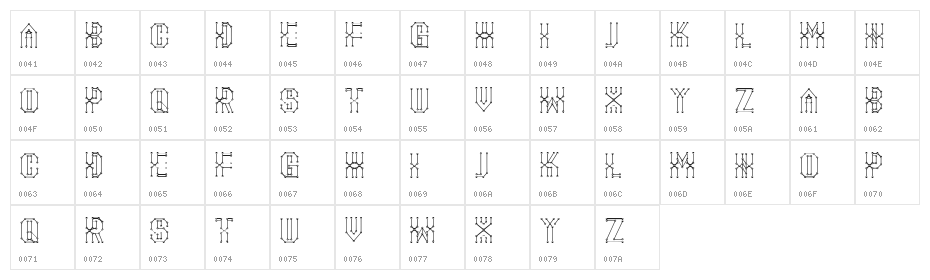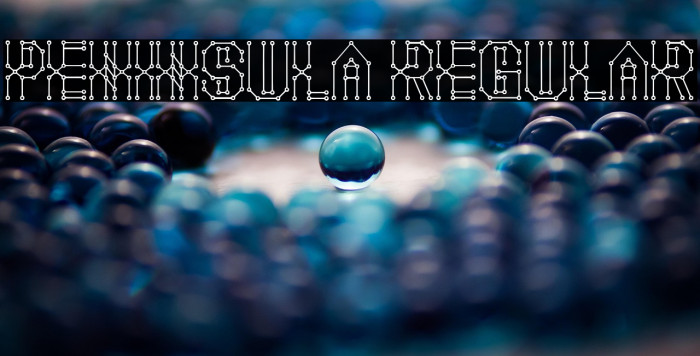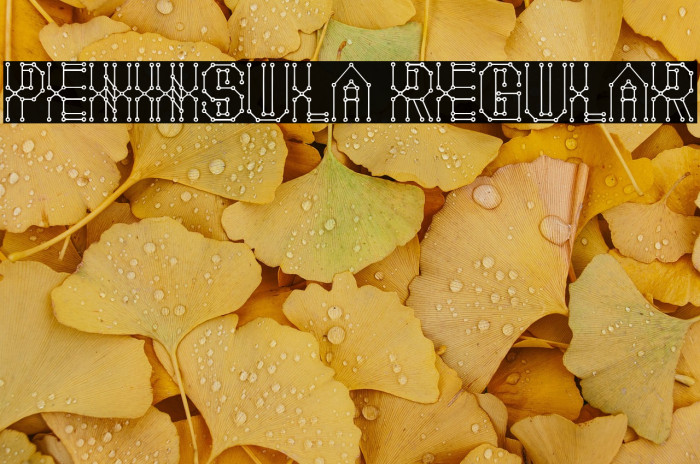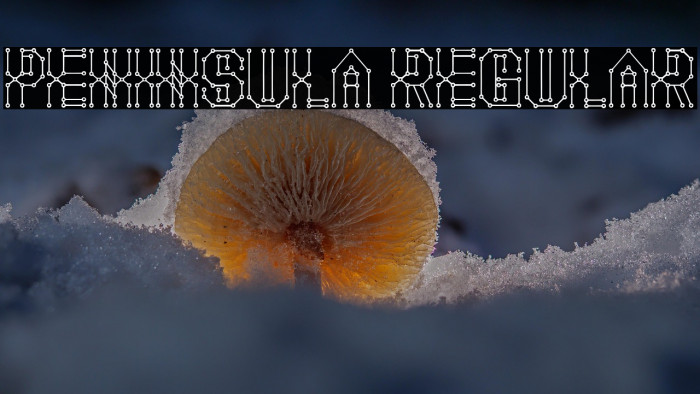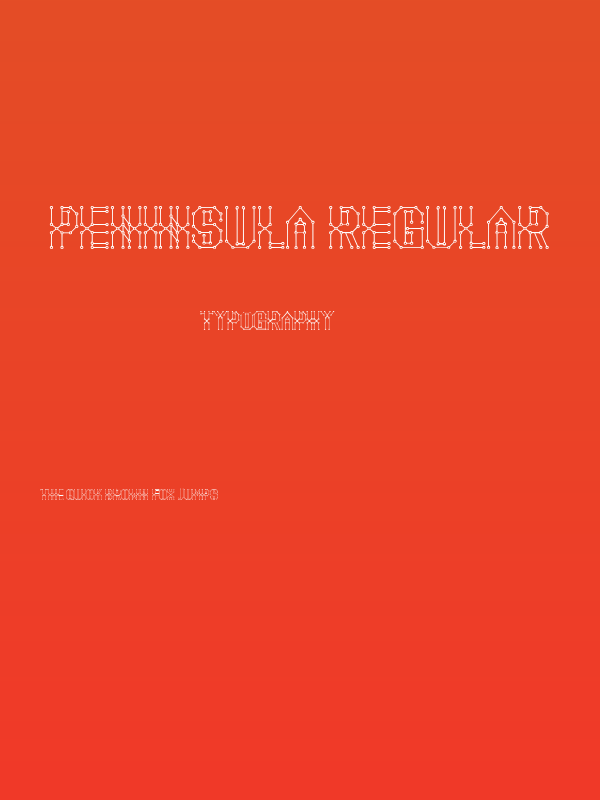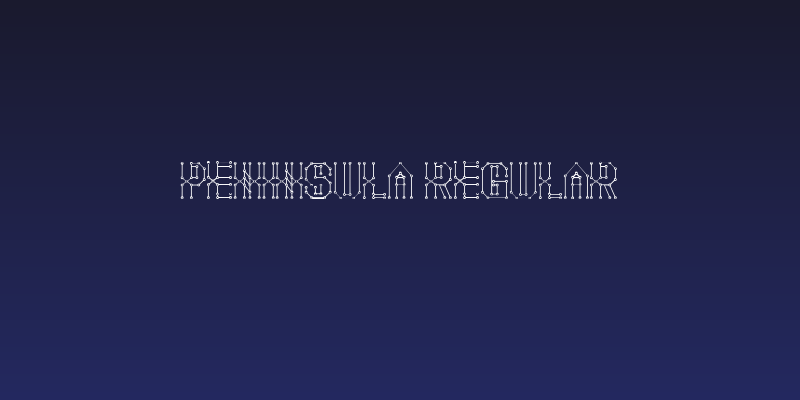
Peninsula Regular Font
Peninsula Regular Description
This font features a unique, circuit-inspired design with each character composed of interconnected lines and nodes, resembling a network or electronic schematic. The geometric structure gives it a modern and technical appearance, making it stand out with its intricate detailing. The uppercase and lowercase letters maintain a consistent style, ensuring readability while adding a decorative touch. The numerals and special characters follow the same design principles, providing a cohesive look across all glyphs. This font is ideal for projects that require a futuristic or tech-oriented aesthetic.
| Proposed Projects | Ideal for tech-themed posters, digital artwork, branding for technology companies, or any project needing a futuristic touch. |